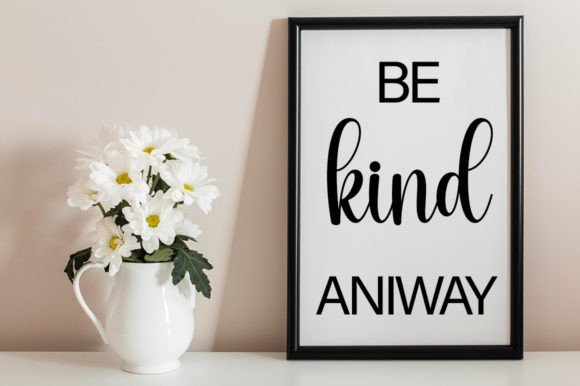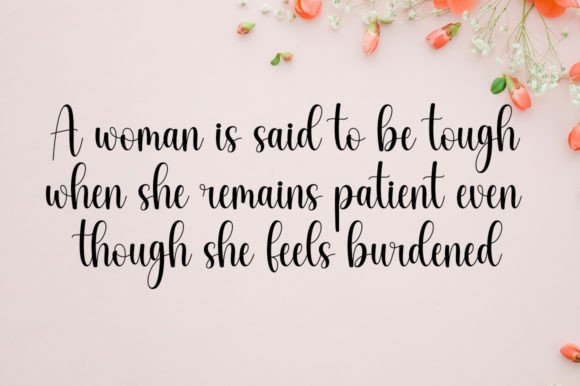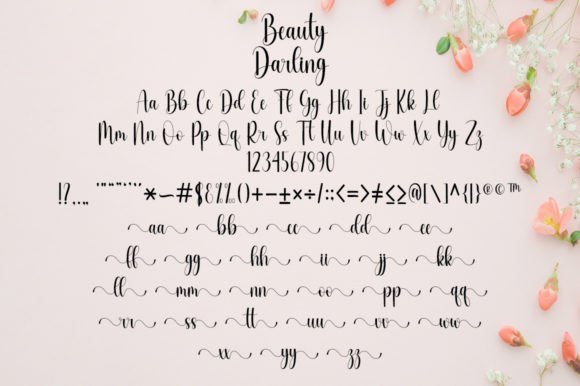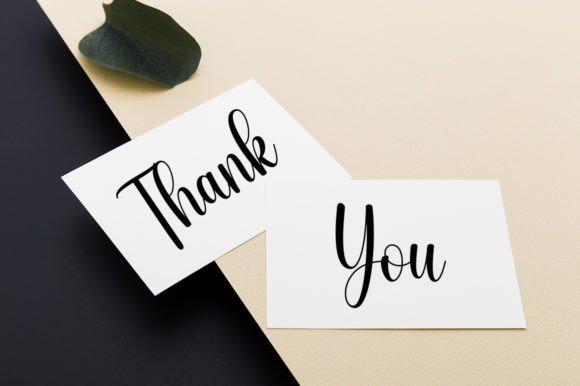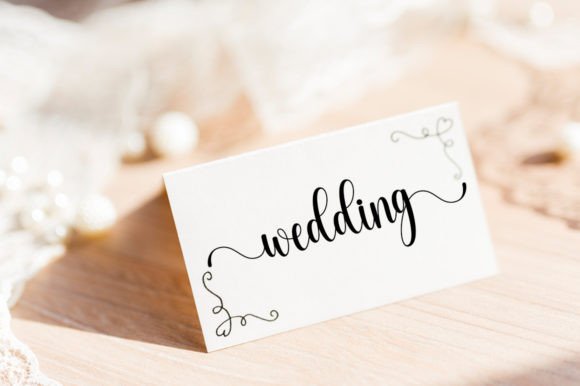
Unleashing the Charm of Handwritten Style
There’s something special about witnessing a creative spark – that moment when an idea clicks, and the entire project begins to take shape. Perhaps it’s the perfect blend of typography, color palette, and composition. For designers, it’s a moment of pure magic. And, for those seeking that unique touch, the Beauty Darling Font is a treasure trove of handwritten elegance.
Beauty Darling Font is more than just a font – it’s a statement piece. Designed to evoke the charm of handwritten style, it’s perfect for a wide range of applications, from wall displays and wedding invitations to social media posts and product packaging. With its beautiful, flowing lines, this font adds a touch of sophistication and personality to any project.
Beauty Darling Font Key Features
- Font Family: Beauty Darling
- Unique Characteristics: Hand-drawn, cursive, elegant, and feminine design with swashes and flourishes
Beauty Darling Font Review
Overall, I think the Beauty Darling Font is a lovely addition to any design project. ✨ Its elegant and feminine style makes it perfect for creating a whimsical or vintage-inspired aesthetic. The font is also highly customizable, with a wide range of options for adjusting the size, color, and spacing of the text.
- The Beauty Darling Font is highly versatile and can be used in a variety of contexts, from wedding invitations to blog headers.
- The font’s script-like style adds a touch of sophistication and romance to any design.
- The customization options make it easy to tailor the font to fit your specific design needs.
However, there are a few limitations to consider. ⚠️ The font may not be suitable for use in body text, as it can be difficult to read in smaller sizes. Additionally, the font’s complexity may make it challenging to pair with other fonts or design elements.
Overall, I think the Beauty Darling Font is a great choice for designers looking to add a touch of elegance and whimsy to their projects. While it may have some limitations, its customization options and versatility make it a valuable addition to any design toolkit.
Beauty Darling Font is perfect for:
Creating elegant and sophisticated designs.
Adding a touch of femininity to your brand.
Designing invitations, menus, and other promotional materials.
Remember to use the font in moderation to avoid overwhelming your design.
Alternatives to Beauty Darling Font
The Great Vibes Font is a beautiful script font that is perfect for creating a whimsical and romantic feel. It is ideal for use in wedding invitations, greeting cards, and other projects where a touch of elegance is needed. Great Vibes Font has a more delicate and flowing feel compared to Beauty Darling Font, making it suitable for projects that require a softer, more feminine touch.
The Carolyna Pro Font is a modern script font that is perfect for creating a sophisticated and stylish look. It is ideal for use in fashion branding, advertising, and other projects where a touch of luxury is needed. Carolyna Pro Font has a more edgy and modern feel compared to Beauty Darling Font, making it suitable for projects that require a bold and eye-catching touch.
The Alex Brush Font is a beautiful script font that is perfect for creating a personal and intimate feel. It is ideal for use in wedding invitations, birth announcements, and other projects where a touch of warmth is needed. Alex Brush Font has a more rustic and handmade feel compared to Beauty Darling Font, making it suitable for projects that require a cozy and inviting touch.
Alexandra Script Font
The Alexandra Script Font is a elegant script font that is perfect for creating a refined and sophisticated look. It is ideal for use in fashion branding, advertising, and other projects where a touch of glamour is needed. Alexandra Script Font has a more classic and timeless feel compared to Beauty Darling Font, making it suitable for projects that require a polished and professional touch.